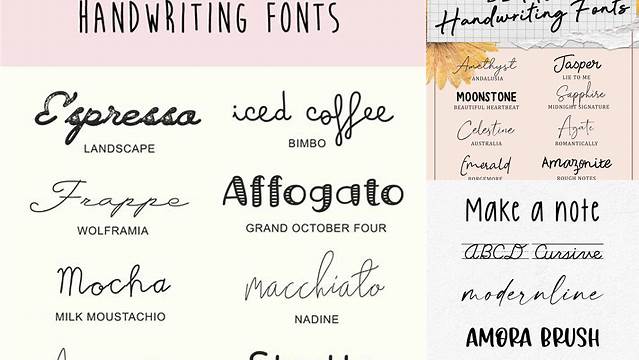
Handwriting Fonts In Word: Your Ultimate Guide
Hey guys! Ever wanted to add a personal touch to your documents? You know, make them look less… robot and more human? Well, handwriting fonts in Word are your secret weapon! They're super easy to use and can transform your boring text into something unique and eye-catching. In this article, we’re going to dive deep into the world of these fonts, exploring how to find them, install them, and use them like a pro. Ready to make your documents sing? Let's get started!
What Are Handwriting Fonts and Why Should You Use Them?
So, what exactly are handwriting fonts? Basically, they're fonts designed to mimic the look of actual handwriting. They come in all sorts of styles, from elegant cursive to casual, everyday scripts, and even some that look like scribbled notes. The beauty of these fonts is that they inject a sense of personality and authenticity into your work that standard, blocky fonts just can’t match. I mean, who wants to read something that looks like it was typed by a machine, right?
Reasons to use handwriting fonts
There are loads of reasons to use handwriting fonts, guys. First off, they're great for making your documents feel more personal and less formal. Think about it – a handwritten note feels way more special than a typed one, right? Using a handwriting font can give your documents that same vibe. They're also fantastic for creative projects like invitations, greeting cards, and posters, helping you to stand out from the crowd. Plus, handwriting fonts can be a lifesaver when you're trying to grab someone's attention. They immediately make your text look different and more engaging, which is perfect for headings, quotes, and any text you want to highlight. And let's not forget the aesthetic appeal. A well-chosen handwriting font can add a touch of class and sophistication to your designs, making them visually appealing and memorable. They can also be a fun way to spice up your work, allowing you to express your creativity and individuality in a way that plain fonts simply can’t.
Common uses of handwriting fonts
- Invitations: Add a touch of elegance to weddings, birthdays, and other celebrations. Seriously, imagine a wedding invitation with a beautiful cursive font – instant class!
- Greeting cards: Make your heartfelt messages even more special with a handwritten feel.
- Posters: Create eye-catching designs that grab attention. Think about using a bold, playful font for a party poster!
- Creative projects: From scrapbooking to digital art, handwriting fonts can add a personal flair. Get those creative juices flowing!
- Headings and titles: Make your headings stand out in reports, presentations, or any document where you want to make an impact. It’s a great way to break up the monotony.
- Quotes: Highlight important quotes in your documents to make them pop.
- Creative Market: A marketplace where you can find premium fonts and design resources. If you are looking for something really unique, or want to support independent designers, this is your place.
- FontBundles: Offers bundles of fonts, often at a discounted price. Perfect if you want a variety of fonts without breaking the bank.
Installing handwriting fonts on Windows
Installing fonts on Windows is a breeze. First, download the font files (usually in .ttf or .otf format) from your chosen website. Next, double-click on the font file. A font preview window will open. In the window, click the “Install” button. Windows will then install the font for you. After the installation is complete, open Word and you should find your new font in the font list. If you've already got Word open, you might need to close and reopen it for the font to appear. It’s as simple as that – you’re ready to start using your new handwriting font!
Installing handwriting fonts on Mac
Installing fonts on a Mac is just as simple. Double-click the font file (again, usually .ttf or .otf). The Font Book application will open, and the font will automatically be installed. If you want to install multiple fonts, you can drag and drop them into the Font Book window. Then, open Word and check the font list to ensure that your new font is available. As with Windows, you may need to restart Word if it was already open when you installed the font. It’s a piece of cake, and before you know it, you’ll be creating documents with your fresh new handwriting fonts.
Conclusion: Unleash Your Creativity with Handwriting Fonts
Alright, guys, we’ve covered a lot! From finding and installing handwriting fonts to using them effectively, you’re now well-equipped to add a personal touch to your documents. Remember, the key is to experiment and have fun. Don't be afraid to try different fonts, and don’t be afraid to play around with the placement and size of your fonts! Start small, and gradually incorporate them into your projects as you become more comfortable. Whether you’re crafting invitations, creating eye-catching social media posts, or simply adding a personal touch to your emails, handwriting fonts are a fantastic tool to have in your creative toolkit. So go ahead, explore the world of handwriting fonts, and let your creativity shine. Happy designing!